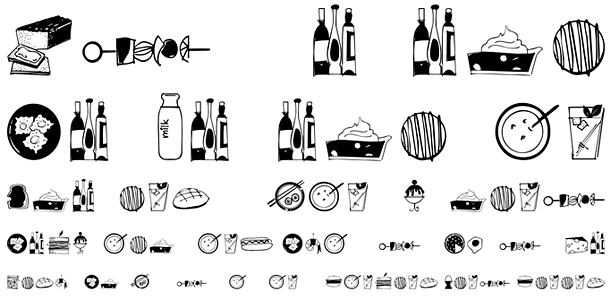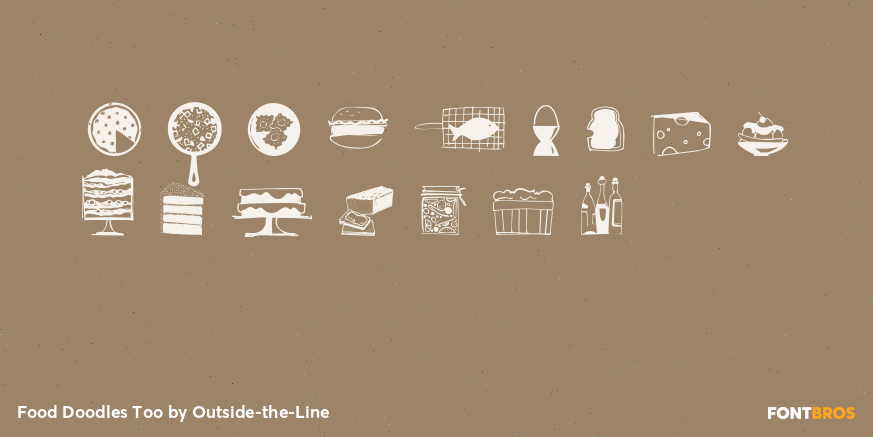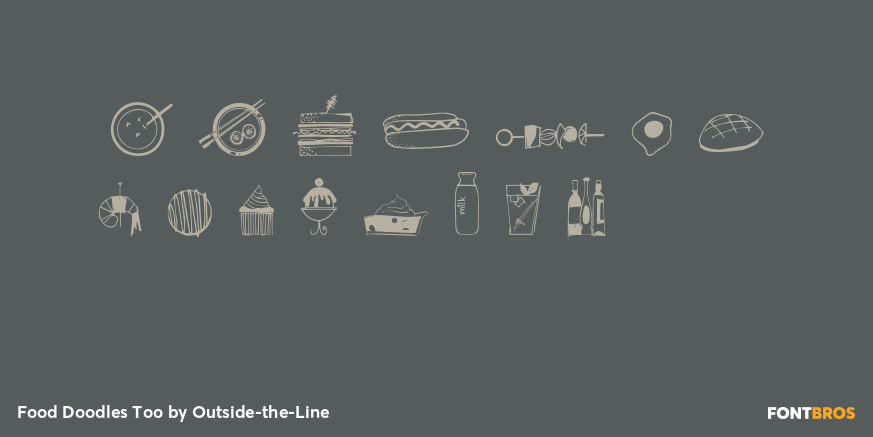
Food Doodles Too
Font Family by Outside-the-Line
Food Doodles Too is a 31-picture clipart font of food. Use them as dingbats or enlarge the small pictures and use them as clipart. Lots to choose from; from soup to nuts (okay, no nuts). But there is pizza, pasta, soup, eggs, sushi, sandwich, hot dog, hamburger, fish, kabobs, toast, breads, cheese, pickles, shrimp, souffle.